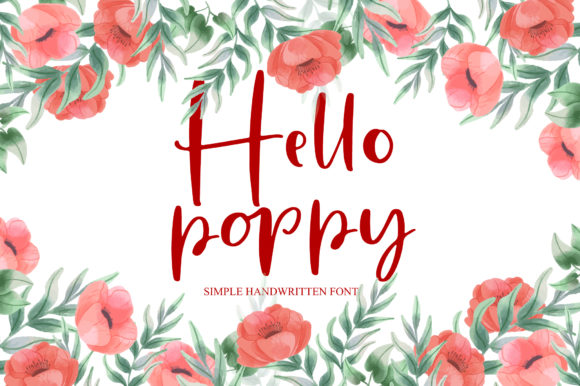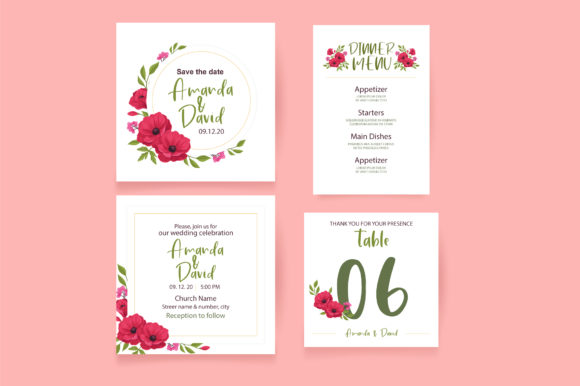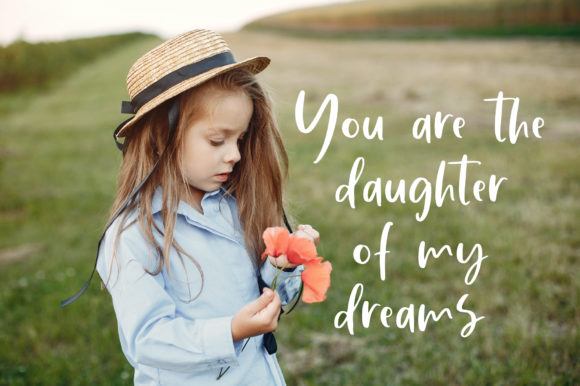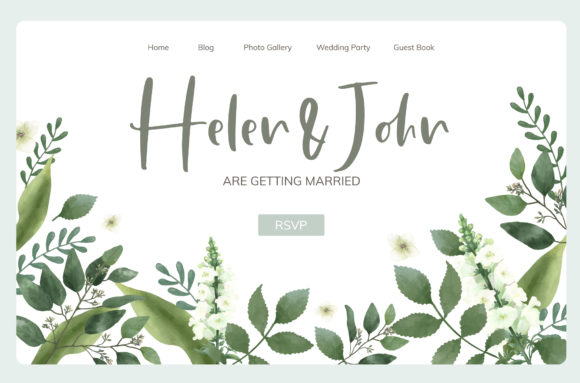
HomeScript FontsHello Poppy Font Script Fonts Hello Poppy Font FacebookXPinterestWhatsApp Hello Poppy Font Poster 2 Hello Poppy Font Poster 3 Hello Poppy Font Poster 4 About Hello Poppy Font Hello Poppy is a simple, cute and sweet font with a lovely look. Get inspired by its friendly and lovely charm! DOWNLOAD NOW People also explored Rosaline Font Western Duo Font Misbotty For Better Love Font Queen Signature Font Jatheya Font Strong Signature Font Ekela Font Gillmoreths Font 408 0 TagsHello Poppy Font Previous articleI Believe in You FontNext articleBritish Font LEAVE A REPLY Cancel reply Comment: Please enter your comment! Name:* Please enter your name here Email:* You have entered an incorrect email address! Please enter your email address here Website: Save my name, email, and website in this browser for the next time I comment. Personal Use Free Sweet Beautiful Personal Use Free Read more about this font Limejuice Personal Use Free Read more about this font Tomatoes Personal Use Free Read more about this font Adelfa Personal Use Free Read more about this font BLOG Best Fonts for T-Shirt Design – Top 2025 Picks In 2025, t-shirt design has become more than just fashion—it's a form of self-expression. Whether you're... The 10 Best Handwriting Fonts to Add Personality to Your Designs Free Fonts Risk: Why Free Fonts Can Be Dangerous for Designers Where to Buy American Fonts Online in 2024